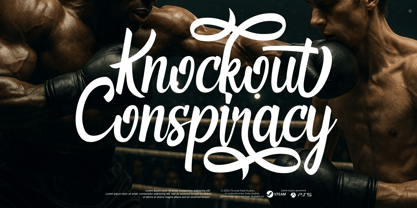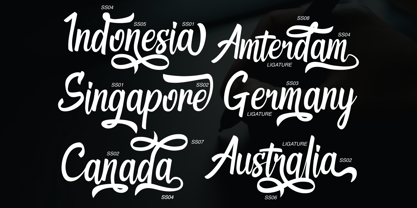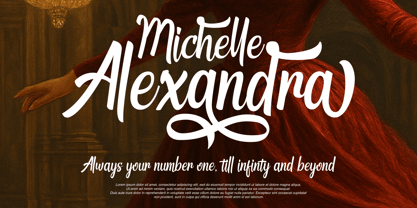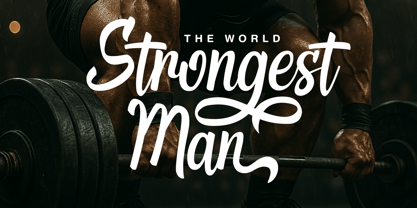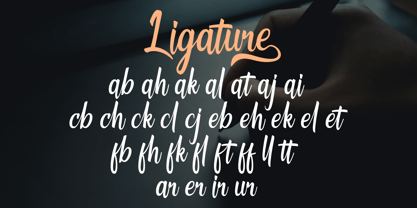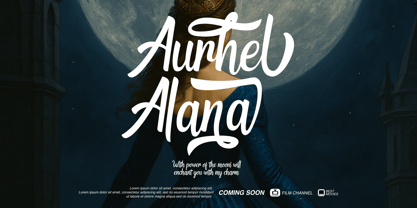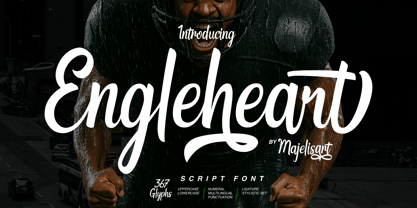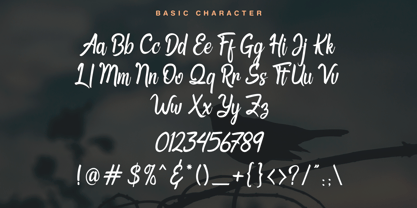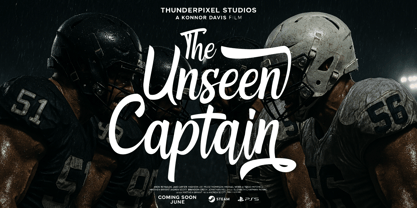
Engleheart
The Engleheart Font Family was designed by Fikhry Mus Pratama and published by Majelis Art. Engleheart contains 1 styles. More about this family
Our font, Engleheart, is a modern script style with a typographic touch, enhanced by subtle swash features that add elegance and beauty to its design.
The name "Engleheart" is inspired by the movie The Longest Yard (2004). It references a character played by Kevin Nash, a famous wrestler from World Wrestling Entertainment (WWE). Because of this, part of the font's preview features a sports-themed design.
Font Features
- Uppercase and lowercase letters
- Numerals and punctuation
- Multilingual support
- Single substitutions and ligatures